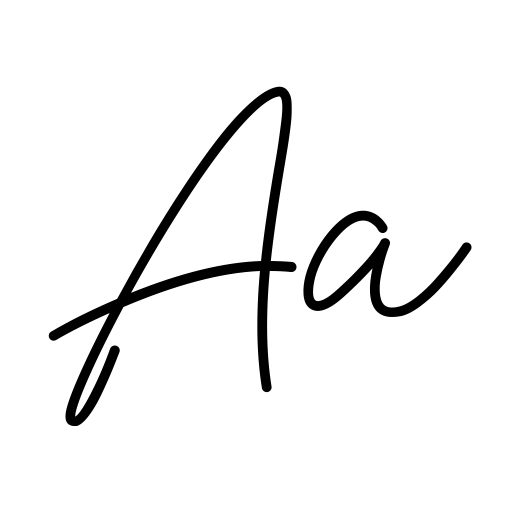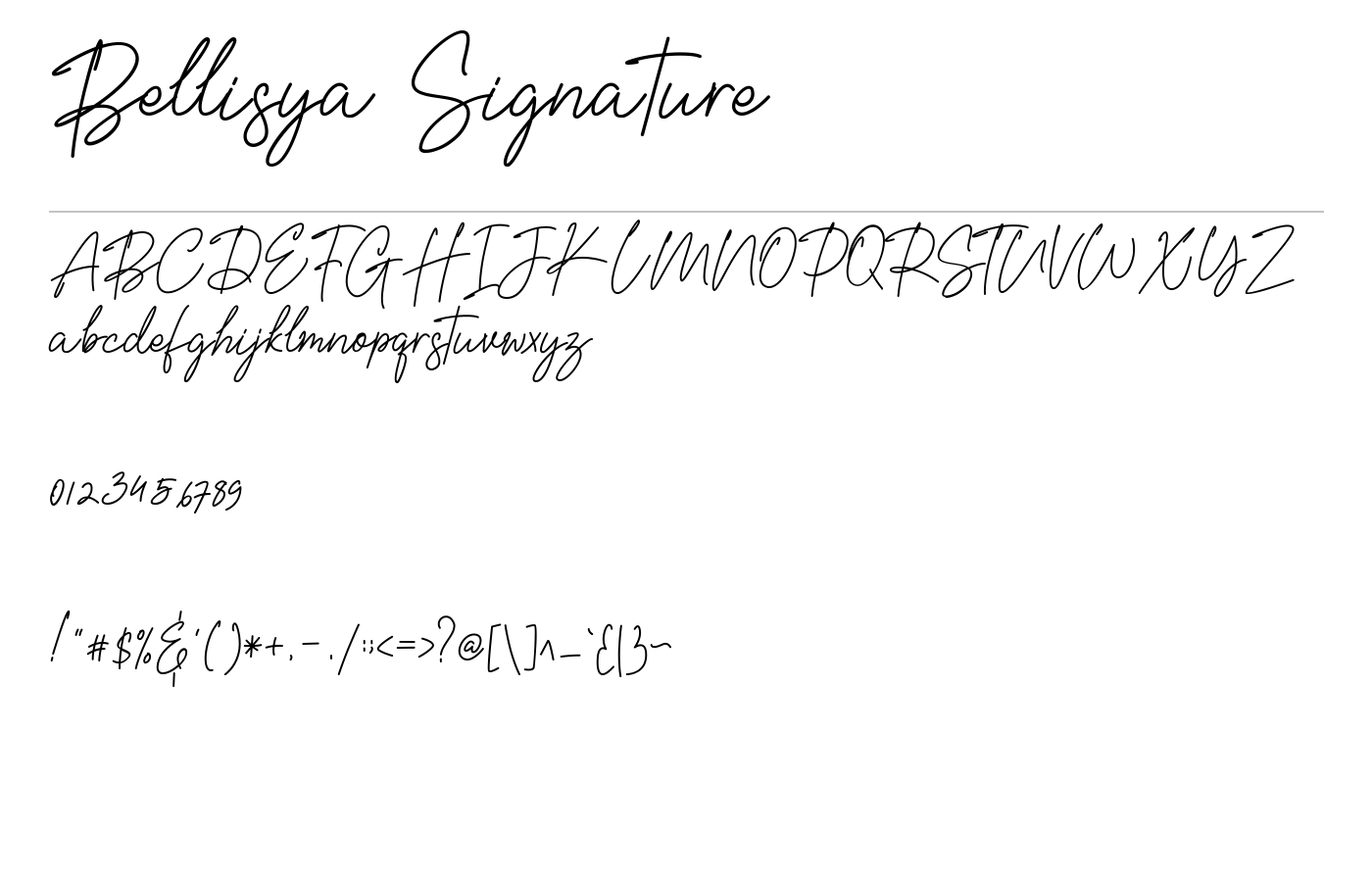
Bellisya Signature Font is a delicate, handwritten script that mimics natural, elegant penmanship with a light weight and airy spacing. Its fluid, cursive letterforms with subtle variations evoke a personal and refined feel, making it perfect for branding, invitations, and stylish logos that seek a modern yet sophisticated touch. This font shines in projects where a graceful, intimate impression is desired.
Bellisya Signature Font
About Bellisya Signature Font
| Font family | Bellisya Signature Font |
| Designer | Motion tail studio |